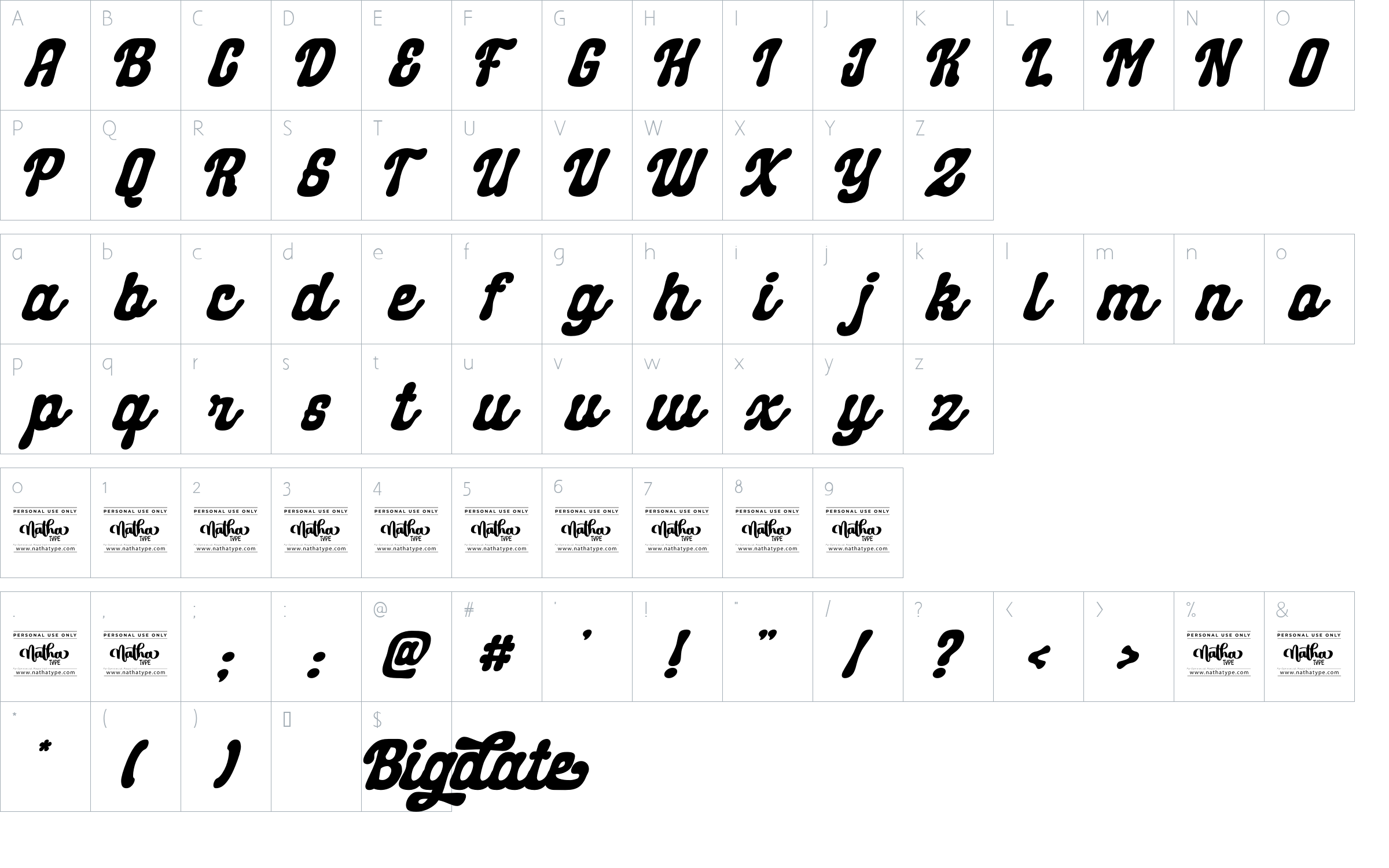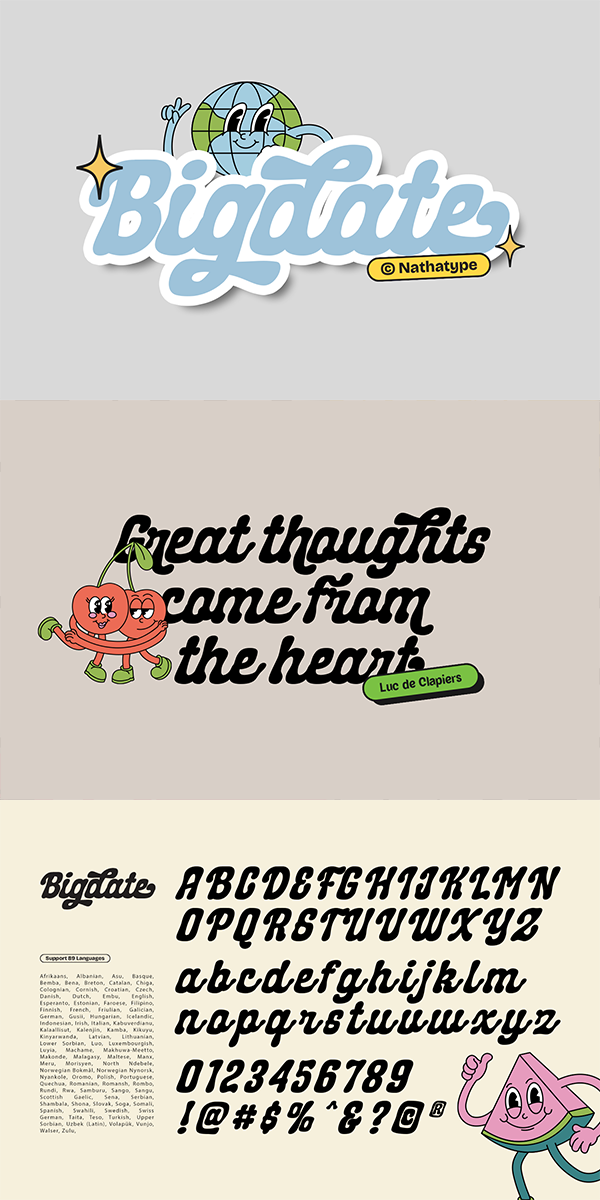
Bigdate Font
About Bigdate
Bigdate is a captivating display font that features connected letters, a bold weight, and low contrast. With its unique design, this typeface brings a sense of fluidity and elegance to your creative projects. The connected letters of this font create a seamless flow between characters, forming a cohesive and visually captivating composition. Each letter effortlessly connects to the next, resulting in a continuous and harmonious appearance. This feature adds a touch of sophistication and uniqueness to the font, making it stand out from conventional display typefaces. With a bold weight, Bigdate commands attention and makes a bold statement in your designs. The thick strokes give the font a strong presence and ensure high visibility. The boldness of the letters adds an element of impact and intensity to your typographic compositions. It features low contrast, allowing for a balanced and uniform visual experience. The consistent stroke width throughout the font creates a harmonious and pleasing aesthetic. For the best legibility you can use it in the bigger text. Enjoy the available features here.
Bigdate fits in headlines, logos, attention-grabbing titles, product packaging, branding materials, invitation, editorial layouts, website headers, and any projects that require a touch of elegance and creativity. Find out more ways to use this font by taking a look at the font preview.